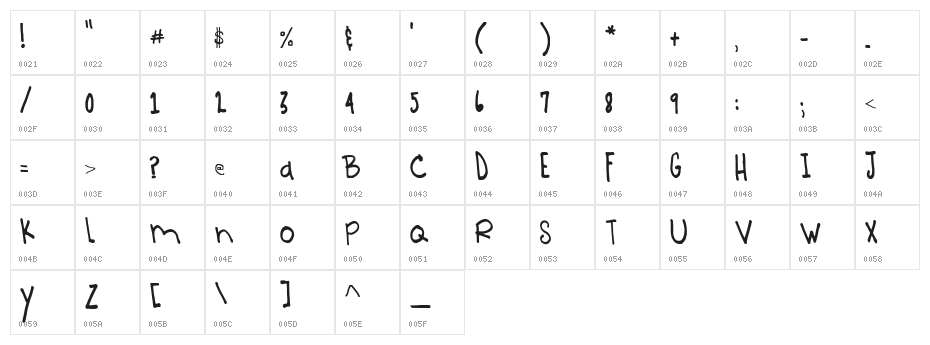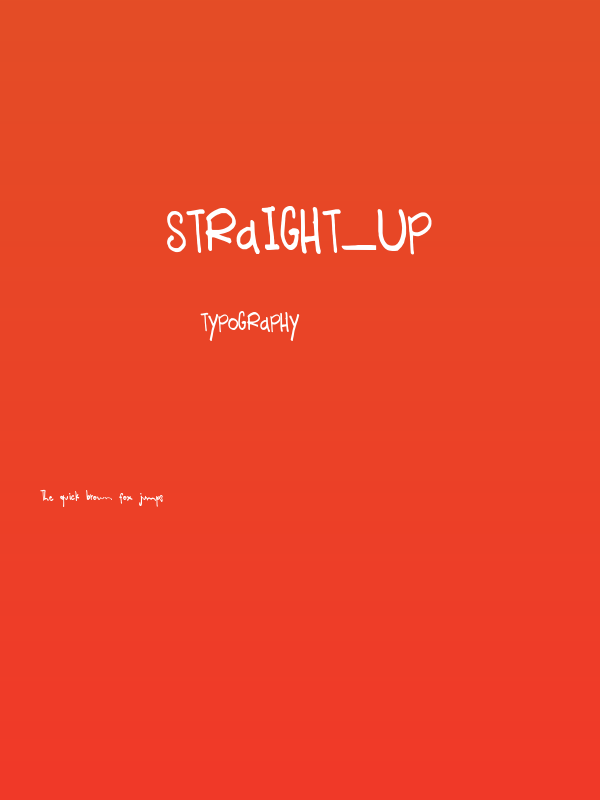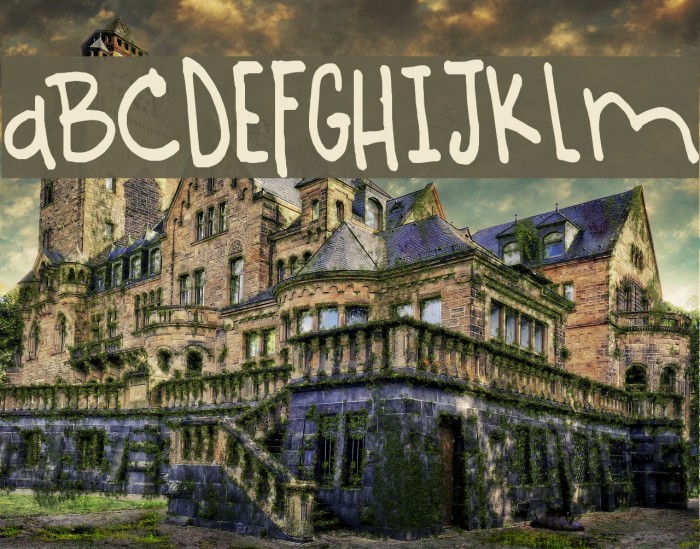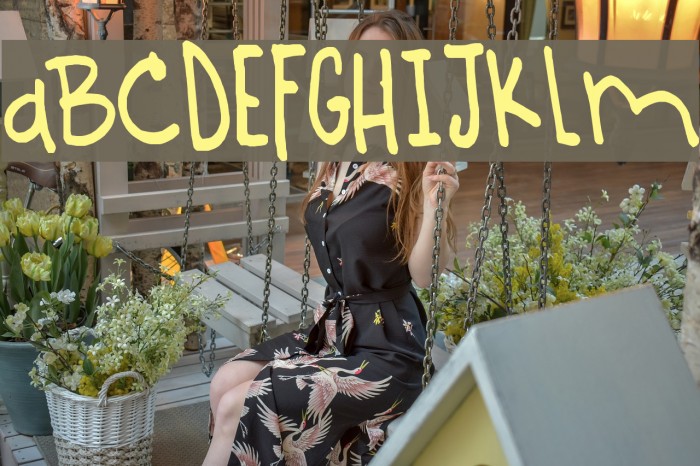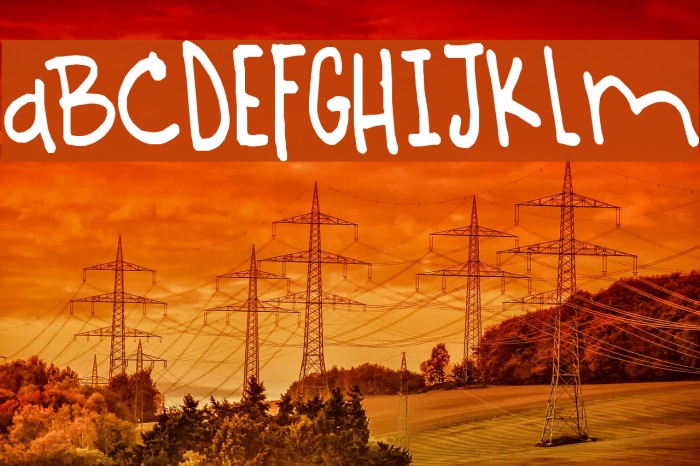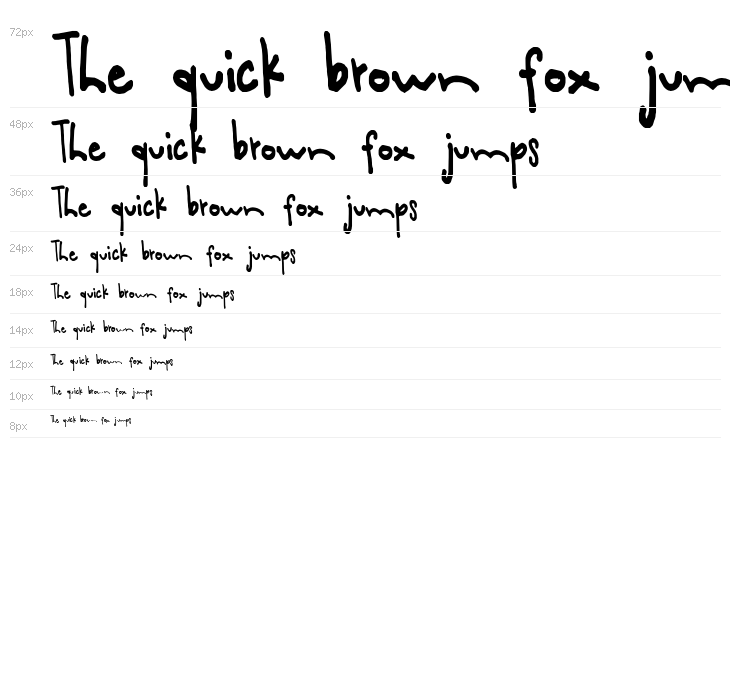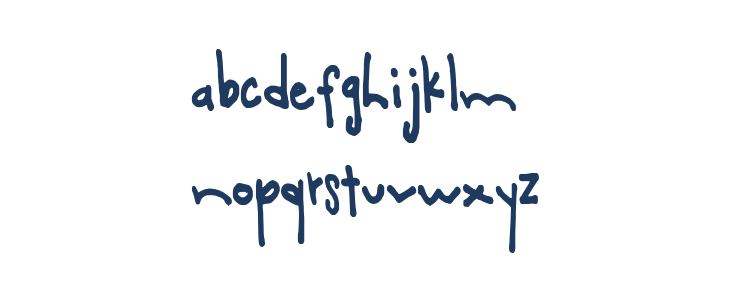
Straight_up Font
Straight_up Description
This font features a playful and casual handwritten style, characterized by its irregular and slightly uneven strokes. The letters have a whimsical appearance, with varying heights and widths that add to its informal charm. The uppercase and lowercase letters maintain a consistent flow, while the numerals and special characters complement the overall style. The font's organic and spontaneous look makes it ideal for projects that require a personal touch or a creative flair.
STRAIGHT_UP UPPERCASE
STRAIGHT_UP LOWERCASE
STRAIGHT_UP OTHER CHARS
| Use Case | Logos, Invitations, Social Media Posts |
| Proposed Projects | Ideal for greeting cards, children's books, casual branding, and creative social media graphics. |